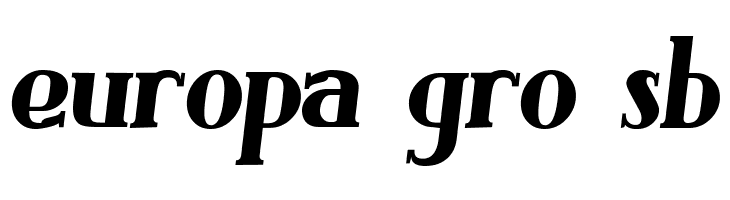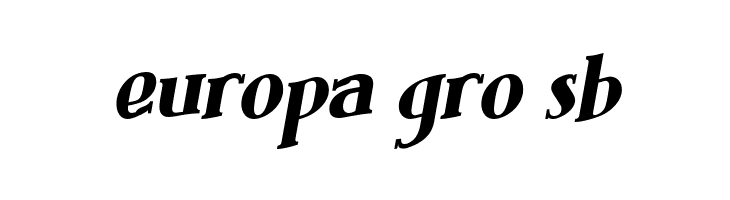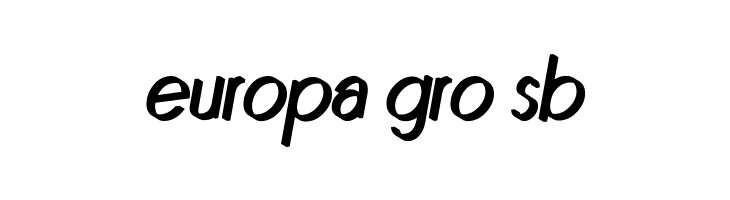
( Luc Mahler )
A modern, italic font with a narrow design and halftone gradient effect.
( Luc Mahler )
An elegant italic font with dynamic strokes and moderate contrast.
( Luc Mahler )
A bold, italic serif font with dynamic, angular serifs and a condensed style.
( Luc Mahler )
A modern, italicized font with high contrast and sleek, elongated characters.
( Luc Mahler )
A modern, italic outline font with clean lines and dynamic style.
( Luc Mahler )
A bold, italicized font with a playful, handwritten style.
( Luc Mahler )
A bold, italicized, and modern font with a sleek, condensed style.
( Luc Mahler )
A sleek, modern italic font with elongated, slightly condensed characters.
( Luc Mahler )
A sleek, modern italic font with clean lines and a dynamic appearance.
( Luc Mahler )
A sleek, light, and italic font with a modern and elegant design.